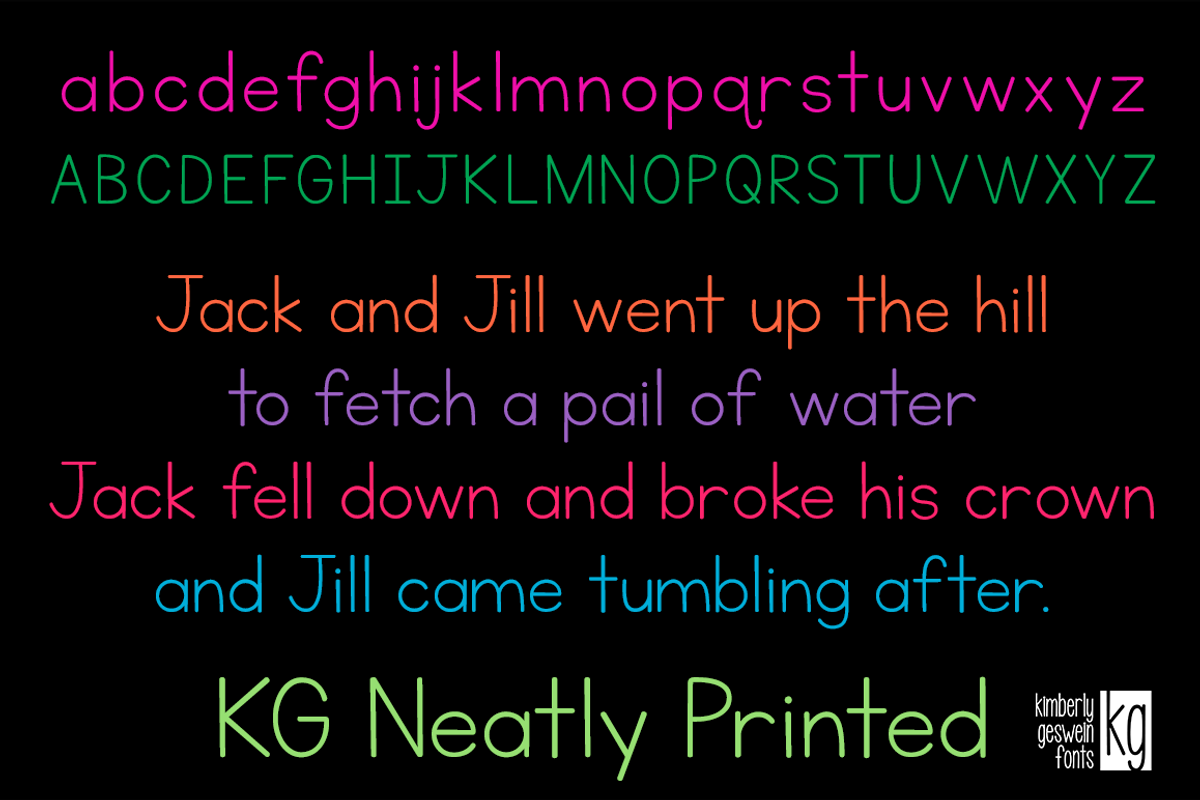
KG Neatly Printed Font Free Download is a clean and simple typeface designed to provide clarity and neatness to your designs. Its rounded, legible letterforms make it perfect for projects that require a professional yet friendly feel. Ideal for posters, websites, branding, social media graphics, and more, this font is versatile and highly readable.
Whether you're creating educational materials, modern logos, or anything that requires a clear, approachable aesthetic, KG Neatly Printed Font ensures your message is conveyed in a neat, crisp style.